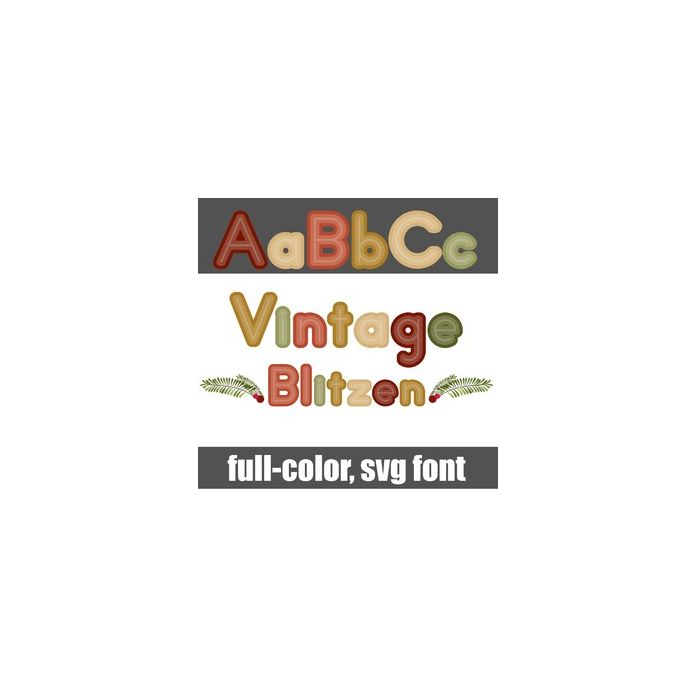
This full-color font features vintage Christmas colors and a berry flourish you can access by typing the greater than and less than glyphs. There is an alt case w/ additional colors you can access through your system or Silhouette's glyph map.